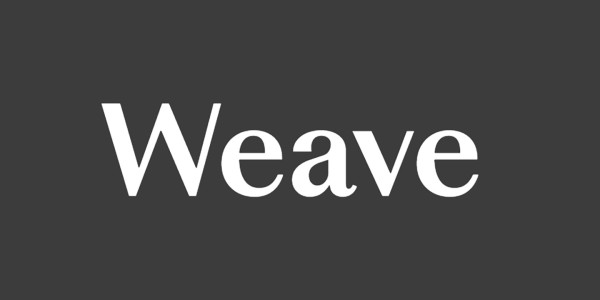
Weave Font
Weave Font is a high contrast Sans-Serif that explores the movement and relationship between angular and smooth outlines. Traversing both a Serif and Sans-Serif design space, moments of high contrast paired with loose, soft curves, stressed weighting and asymmetrical, arching horizontal cut offs offer hints of a gestural Serif design reinterpreted within the confines of a Sans-Serif.
Working within this already expressive arena allows for certain forms to take on unique qualities. Notice the motion in the curved gestures of the “a” and “b”, the theatrical looped “k”, and sharp changes in stroke direction in the “f” and “g”. Subtle inktraps and notches throughout the character set tame these expressive moments with a sense of detail and precision. Weave Font is available in six weights — Regular, Medium, SemiBold, Bold, ExtraBold & Black.